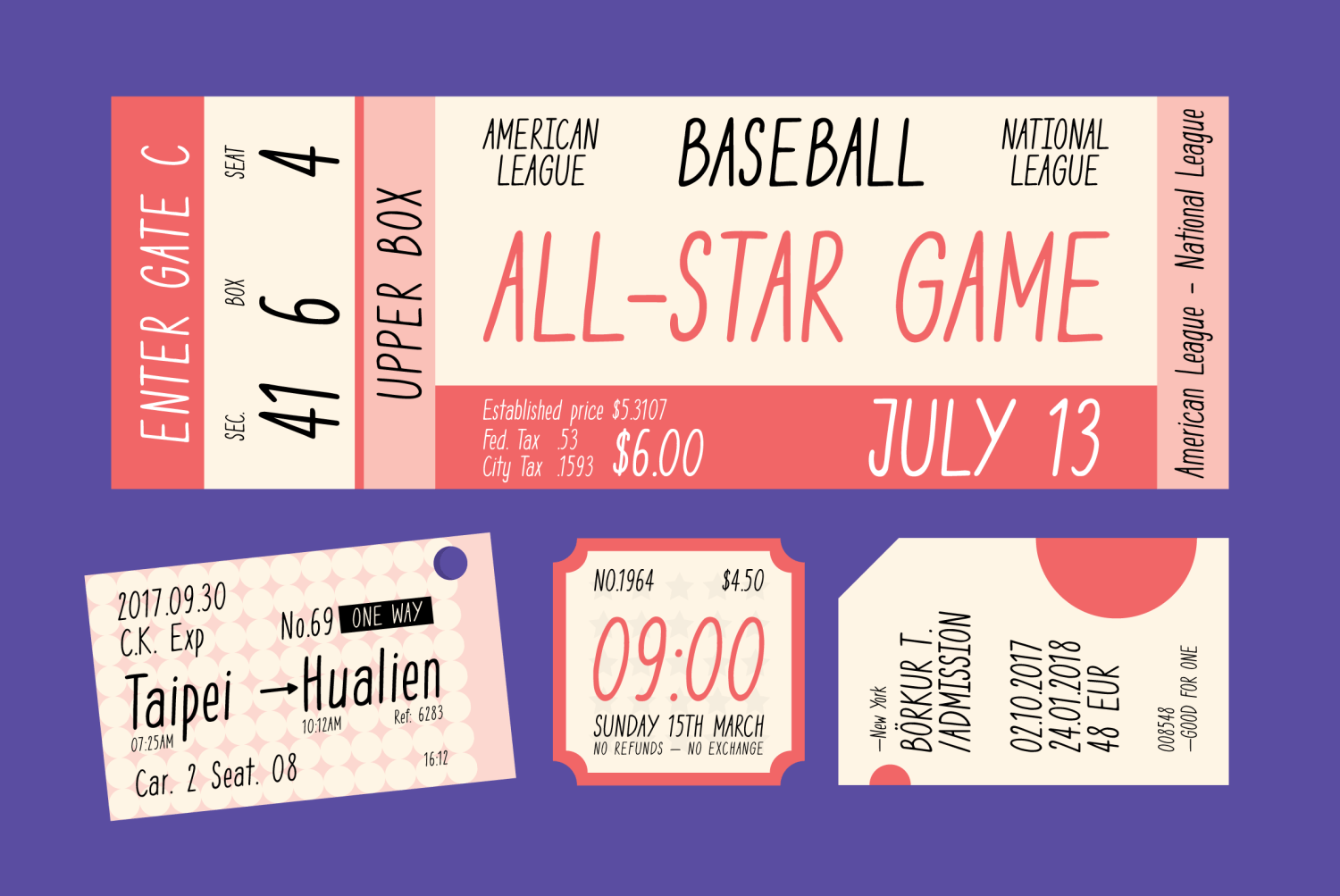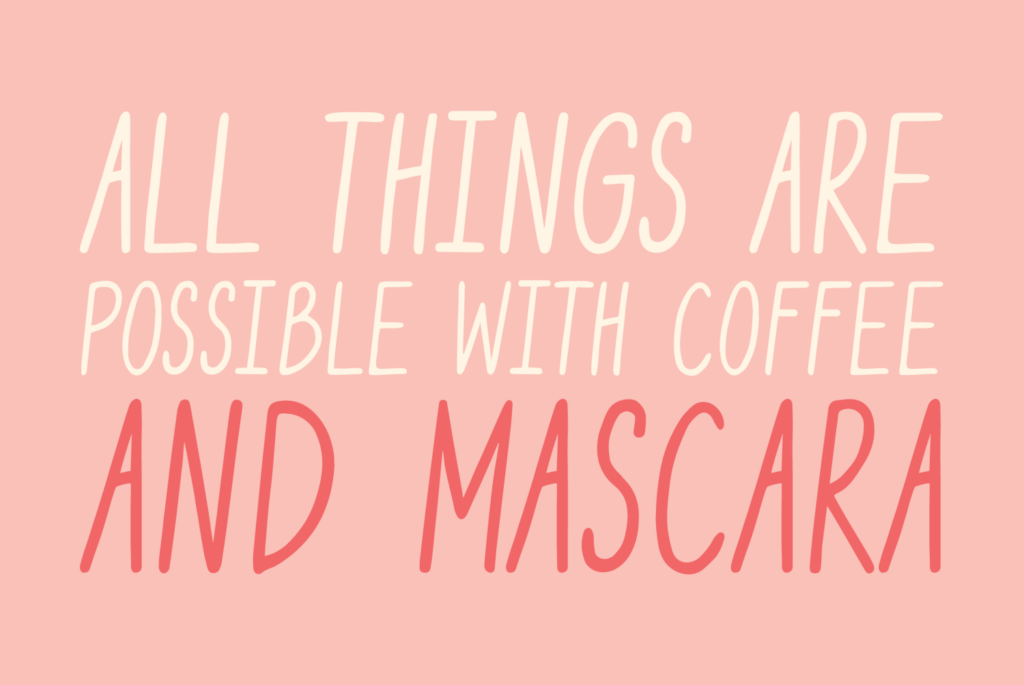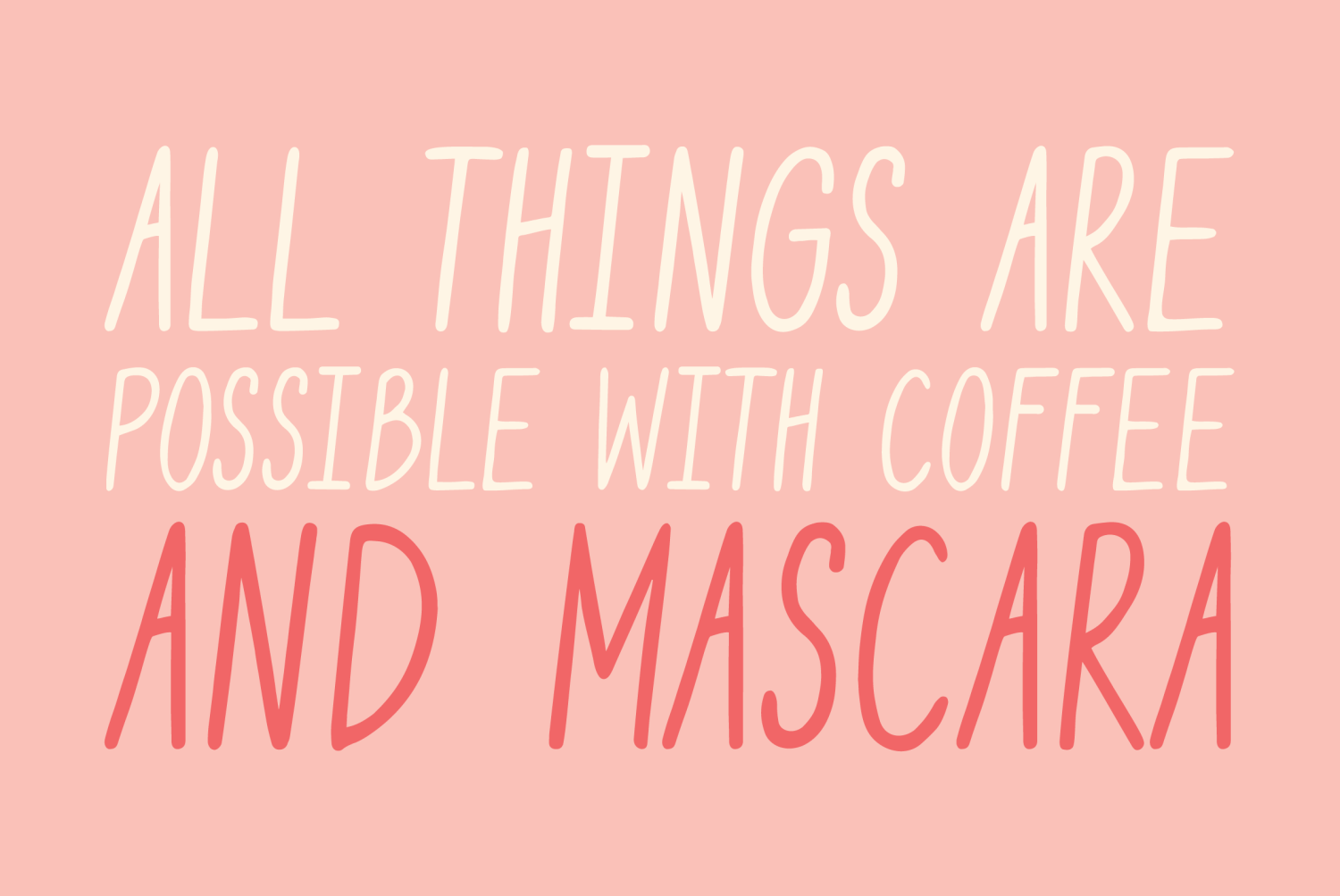
Casual and expressive, YWFT Crew is a handwritten sans serif that pairs its natural, organic strokes with a subtle urban edge. Perfectly at home in a farmer\’s market tightly nestled along a busy metropolitan street, Crew is a wholesome, unrefined, and…